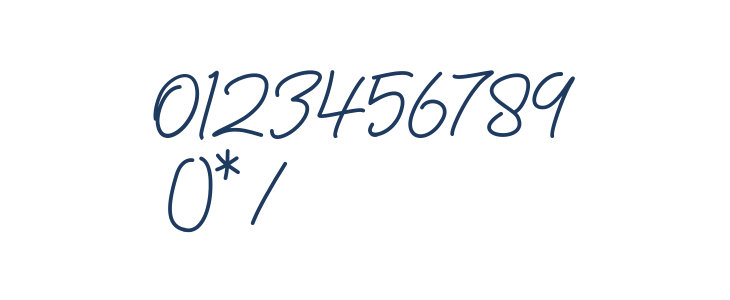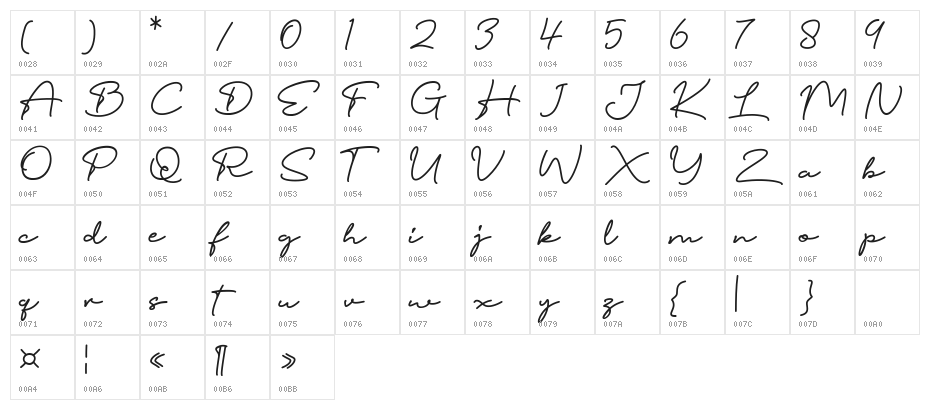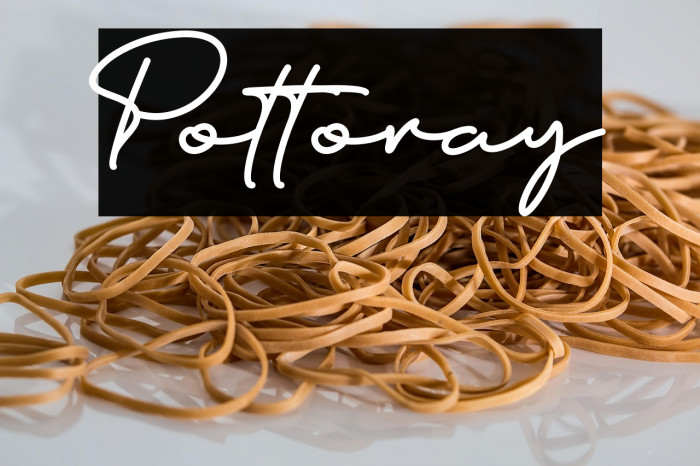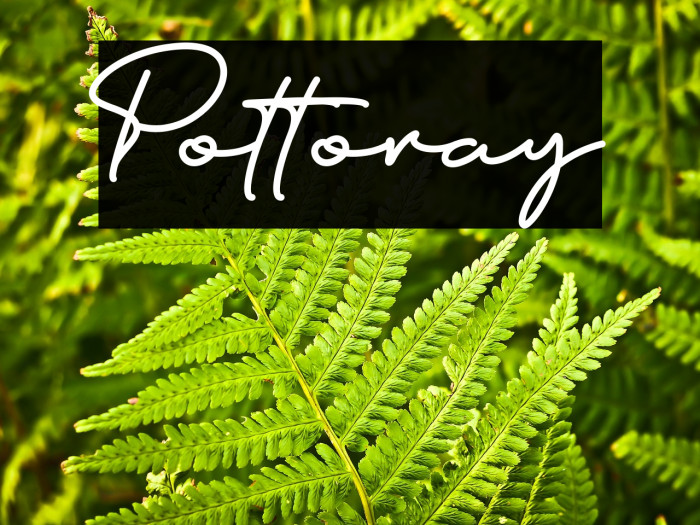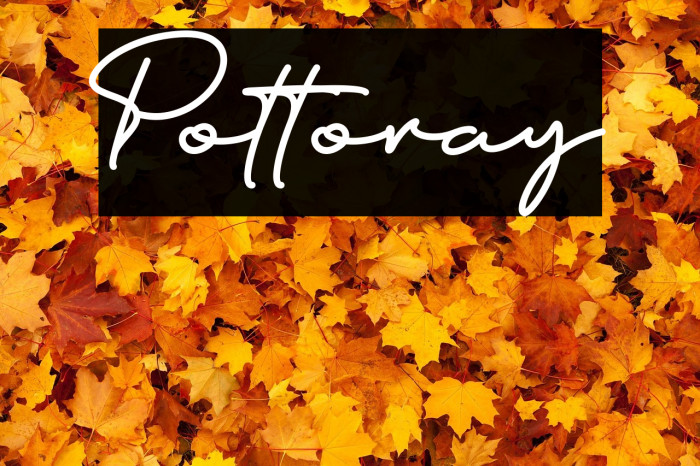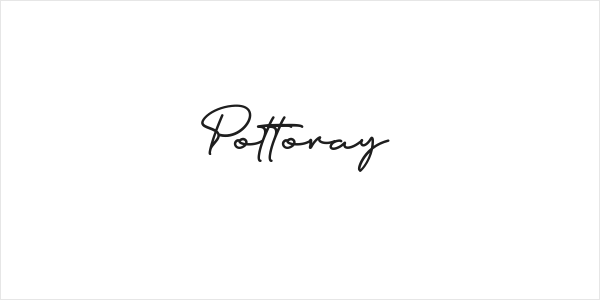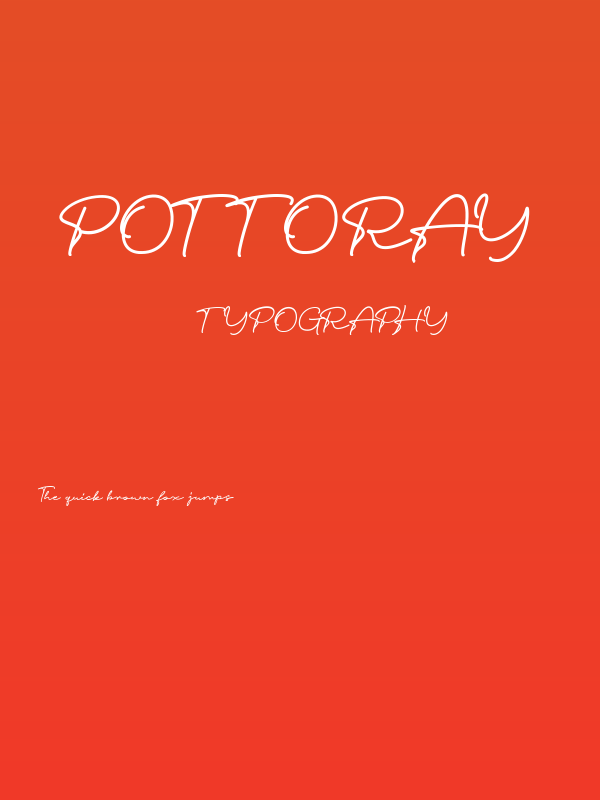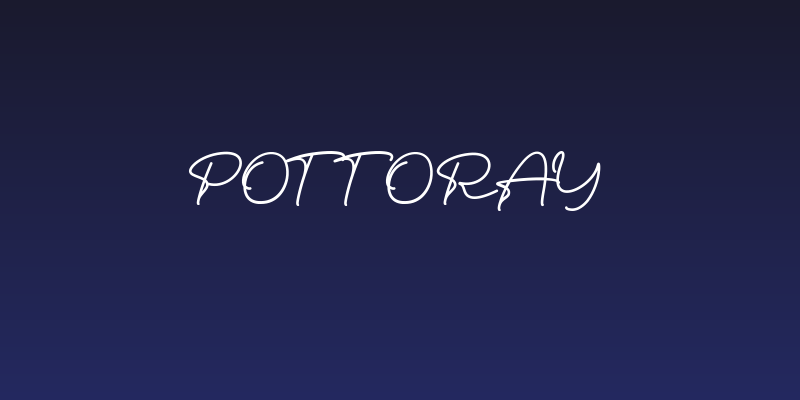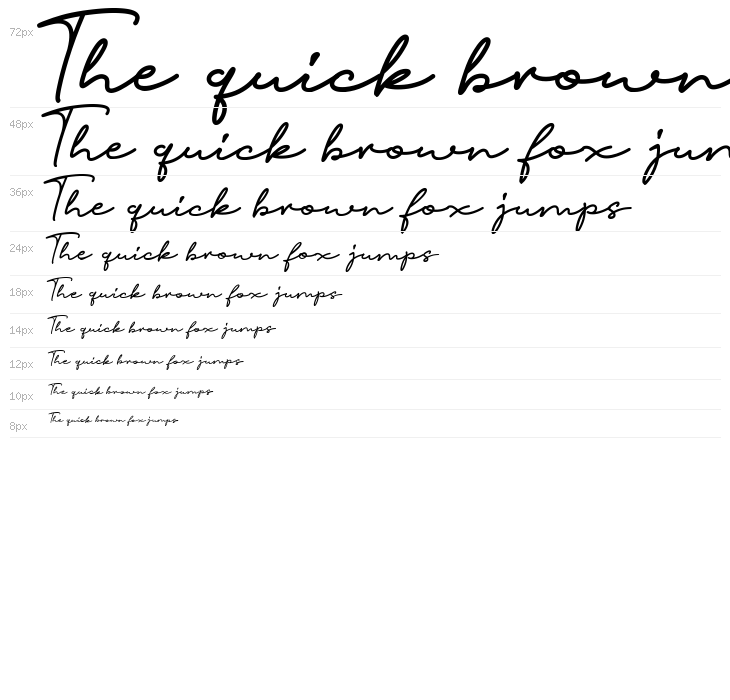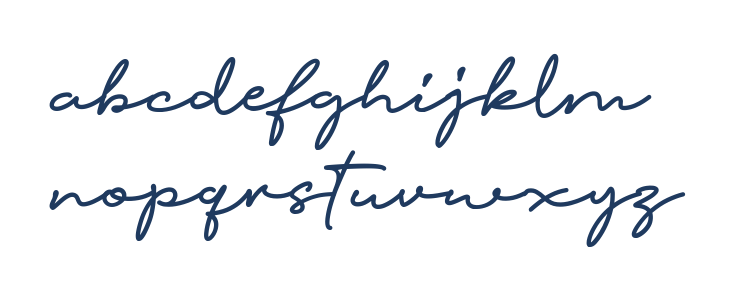
Pottoray Font
Pottoray Description
This font exudes a casual, handwritten style with a smooth, flowing script that mimics natural handwriting. The uppercase letters are elegantly curved, maintaining a consistent height, while the lowercase letters feature a slight slant, adding to the font's dynamic and lively appearance. The numerals are clear and legible, with a playful touch that complements the overall style. Special characters are thoughtfully designed to match the font's aesthetic, making it versatile for various uses. The font's organic feel makes it ideal for projects that require a personal touch.
| Overall Style | Casual, Organic |
| Use Case | Logos, Invitations, Social Media |
| Proposed Projects | Ideal for greeting cards, invitations, personal branding, and social media graphics. |